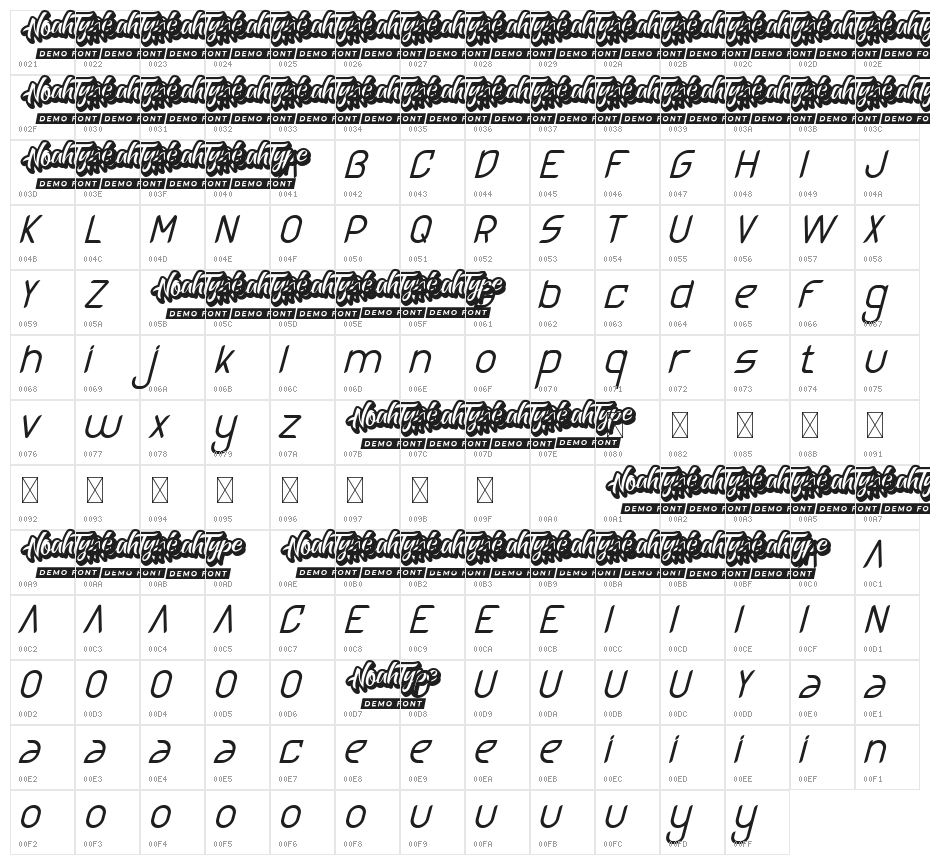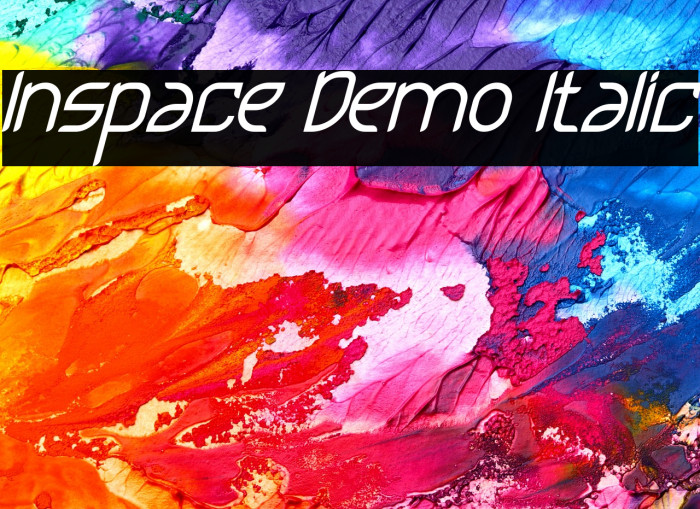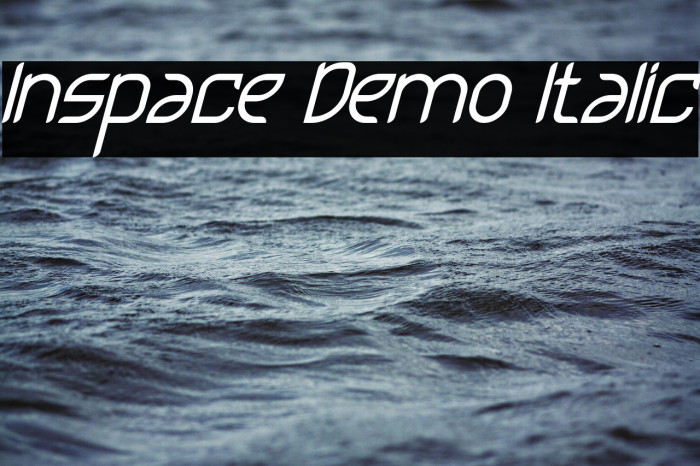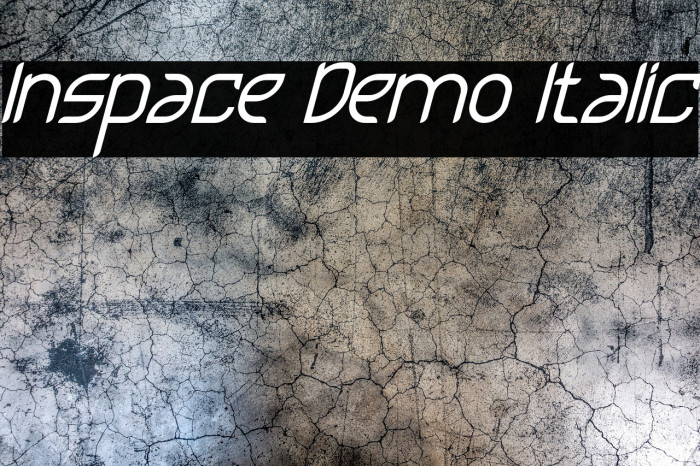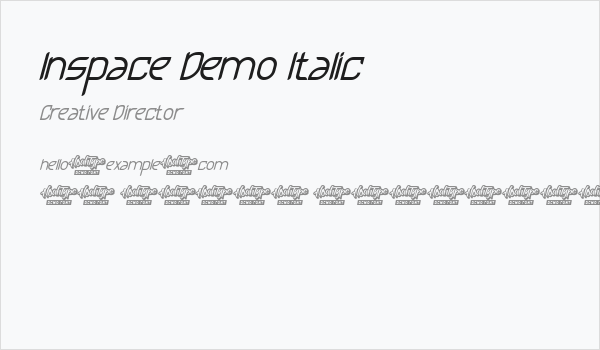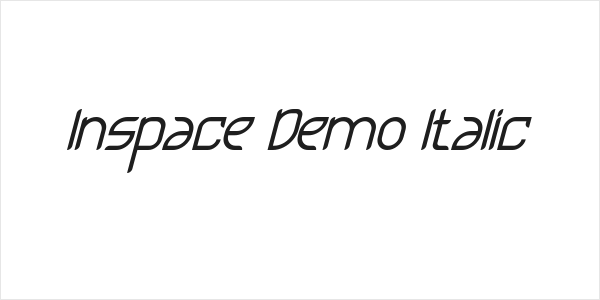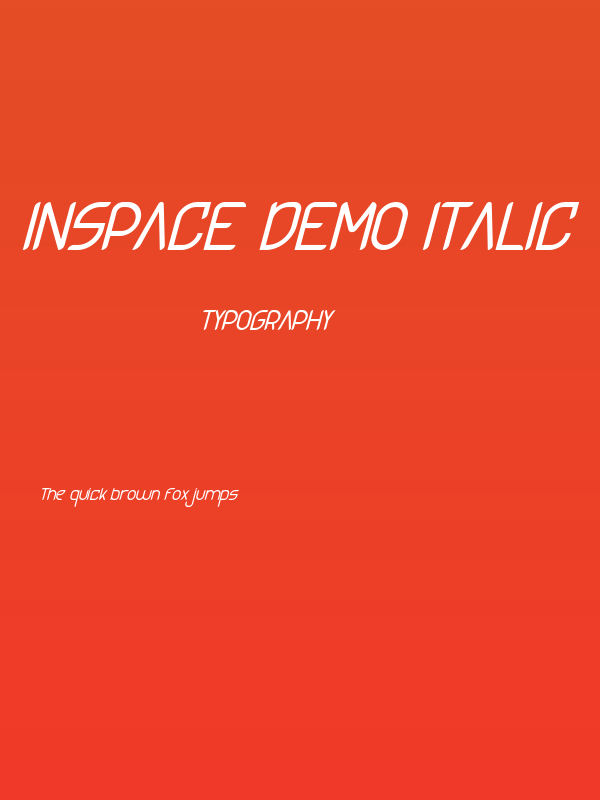
Inspace Demo Italic Font
Inspace Demo Italic Description
This font features a sleek, italicized design with a futuristic and dynamic appearance. The characters are elongated and slightly condensed, giving a sense of motion and speed. The strokes are consistent in thickness, providing a uniform look across all letters. The uppercase and lowercase letters maintain a cohesive style, with smooth curves and sharp angles that enhance its modern appeal. The numbers and special characters are designed to match the overall aesthetic, ensuring versatility in various applications.
| Use Case | Logos, Headlines, Branding |
| Proposed Projects | Ideal for technology branding, sports team logos, automotive designs, and modern advertising campaigns. |